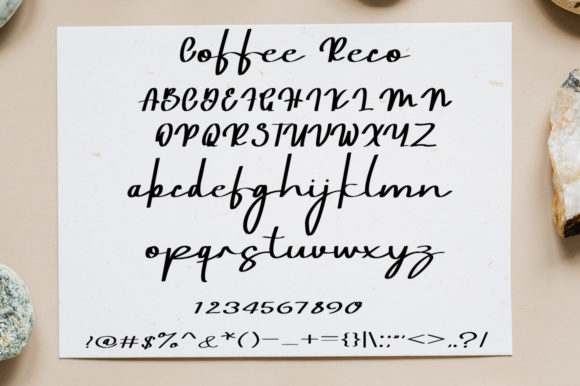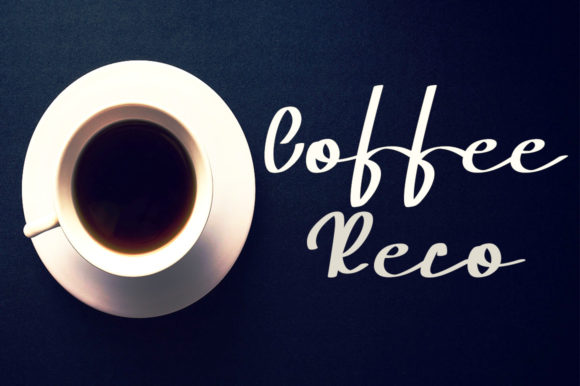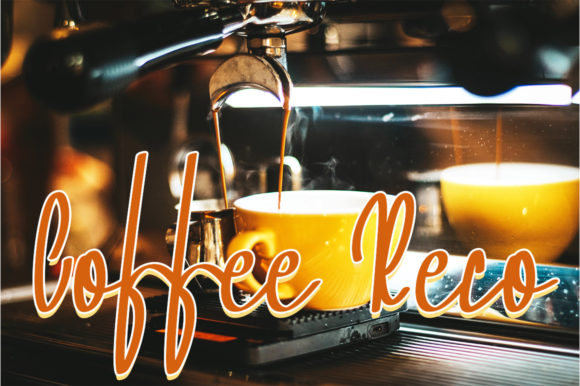
Coffee Reco Font
About Coffee Reco Font
Coffee Reco is a sweet and delicate handwritten font. Dainty and joyful, this font will be ideal for writing wedding invitations, cards, or any other design that may need a romantic, personalized touch!